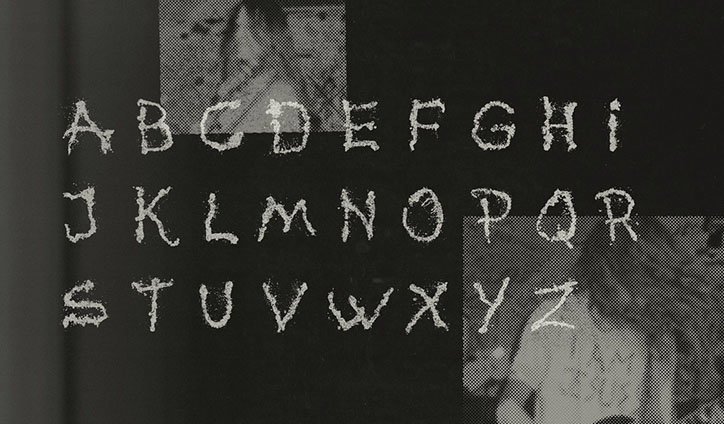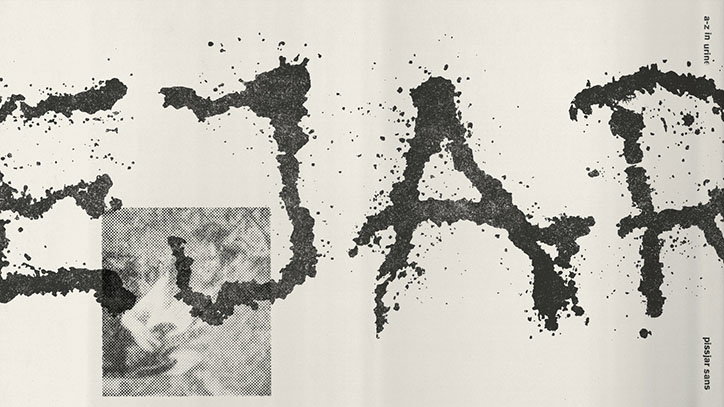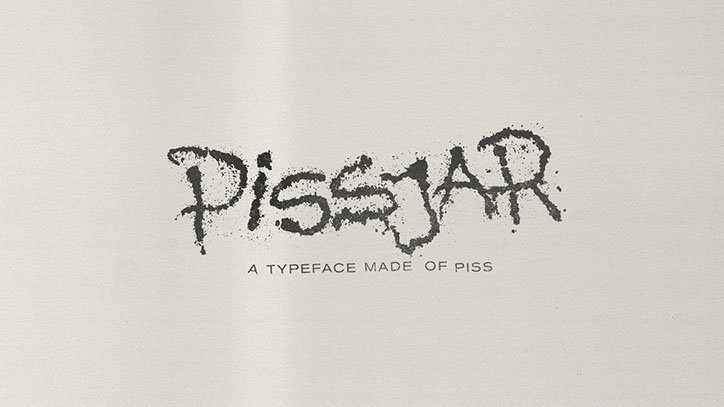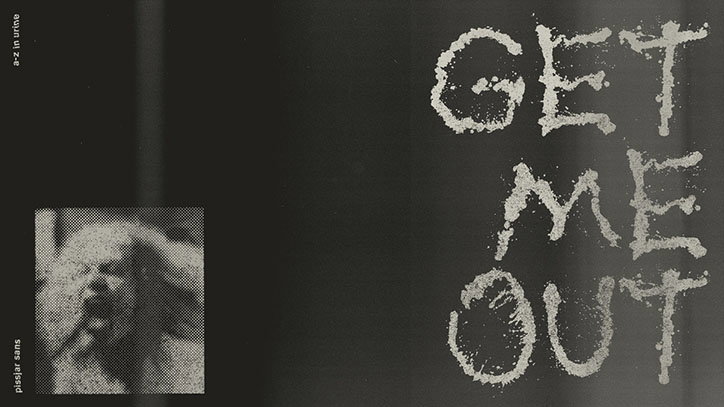
Swedish hardcore band Pissjar creates a typeface by, erm, pissing
In recent years we have seen typefaces created using mayonnaise and identities formed with toothpaste, but Anton Bolin a graphic designer and bassist in Stockholm-based hardcore punk band Pissjar has upped the ante.
Pissjar Sans is an alphabet created by Anton and his fellow band members by taking careful aim and pissing each character of the alphabet onto a canvas. The typeface was used to create the logotype for the band on its first album Apathy and Cheap Thrills and Anton has made it free to download “if you want to spice up your wedding invitation, school report or use it as a logo for your shitty start-up”.
“We built a custom frame and tried out loads of different fabrics, using some good pieces of worn bed sheets with the perfect absorbency to cover the frame. Then we just started to pee a lot, one letter per pee session,” explains Anton. “When the bladder was empty we had like 5 seconds to photograph the frame before it bled out. After that we vectorized the photo and edited it with a font software.”
The whole process took around 300 ‘takes’, with the R proving particularly troublesome, over six months.